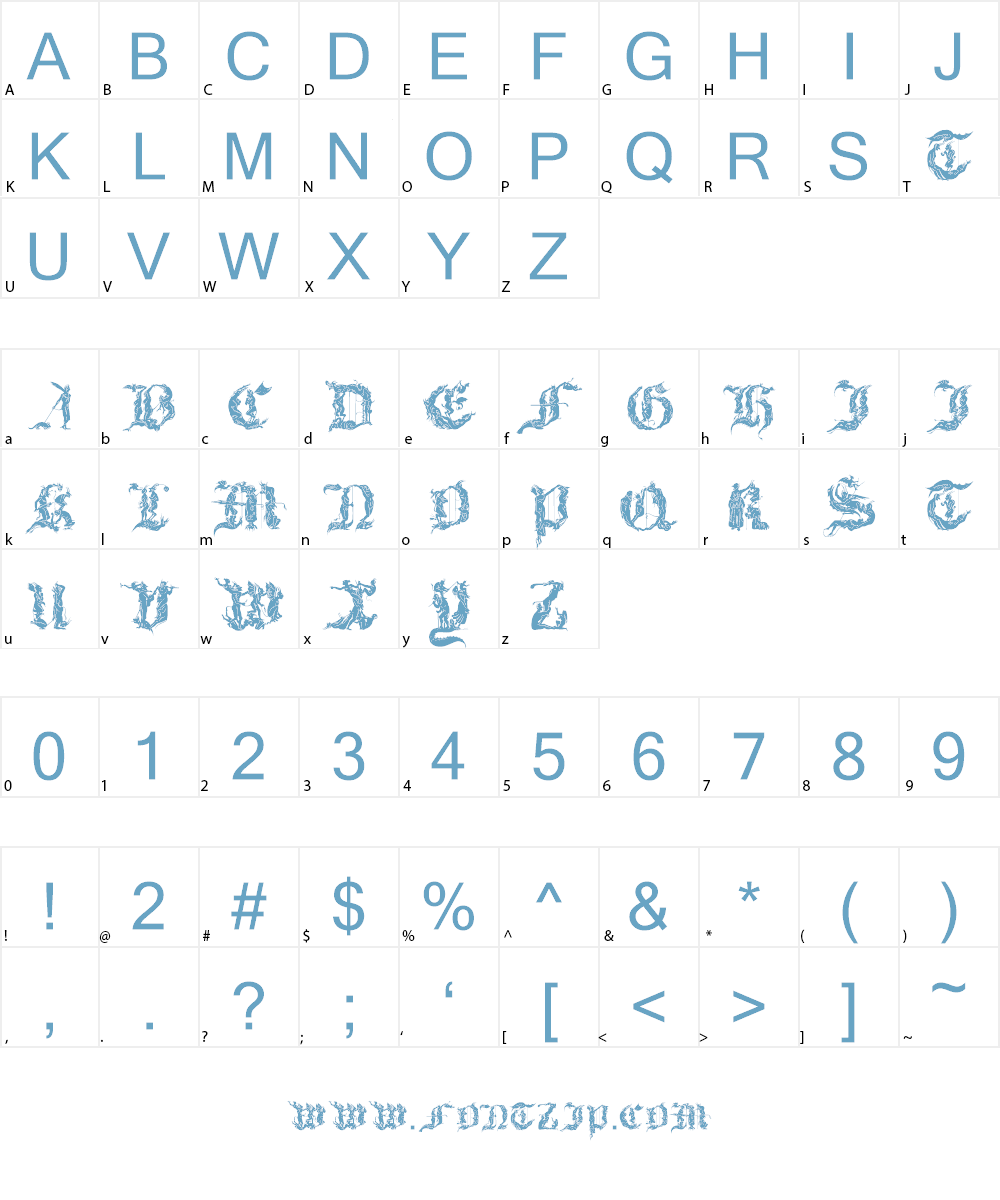
This alphabet was designed by Jean Midolle and published in Strasbourg in
1834.
During the previous 50 years the French had seen violent revolution
(1789-1799), and the Napoleonic wars (1803-15), followed by the restauration
of a monarchy that was increasingly reactionary, intent on augmenting the
influence of the wealthy classes, and curbing civil liberties (Louis XVIII
1814-24; Charles X 1824-30). The July Revolution of 1830 restored what
promised to be a more moderate monarchy under Louis Philippe. But this new
government was not to respond to the economic needs and political desires
of the lower classes, and further discontent became inevitable.
Within this context, the often tasteless images of this "Alphabet
diabolique" may be better understood as portraying through satire the harsh
realities that the French people had faced within a single lifetime.
Incidentally, being English myself, I cannot but wonder whether in Midolle's
eyes, Death is an Englishman- take a look at him in letter M, toting his
umbrella, and possibly wearing Wellington boots!